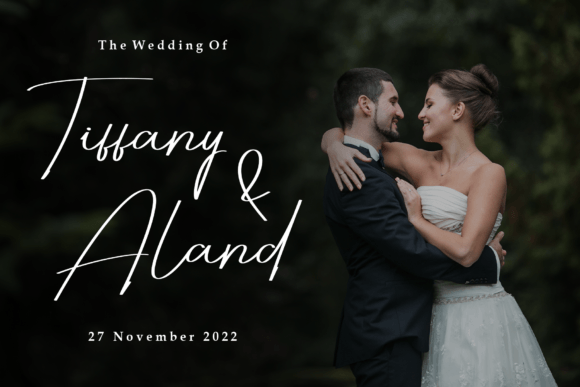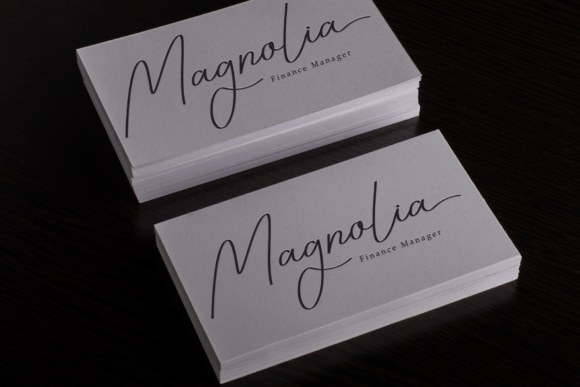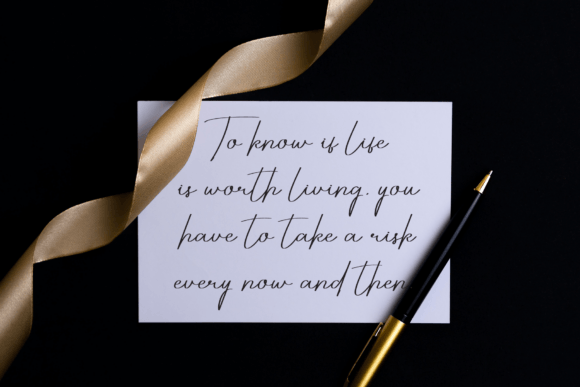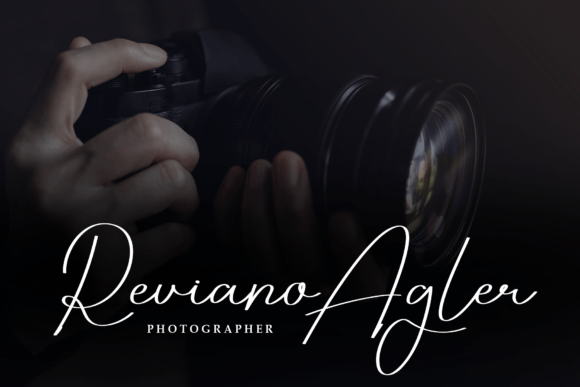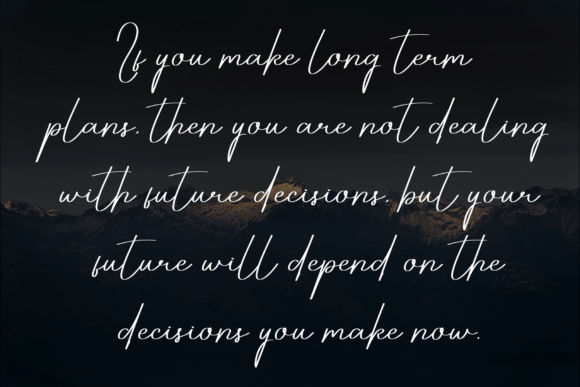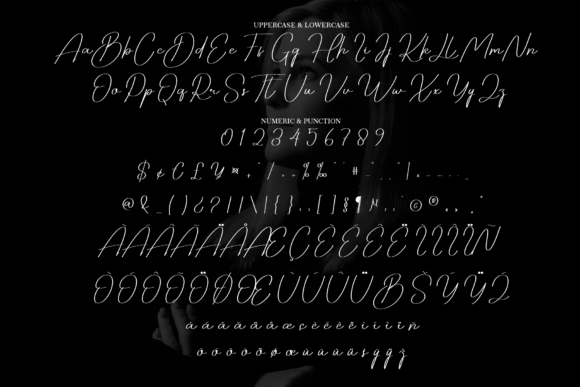
Introduction to Neghtia Font
Neghtia is a sweet and delicate handwritten font.
Dainty and joyful, this font will be ideal for writing wedding invitations, cards or any other design that may need a romantic, personalized touch .
Key Features of Neghtia Font
Why Choose Neghtia Font?